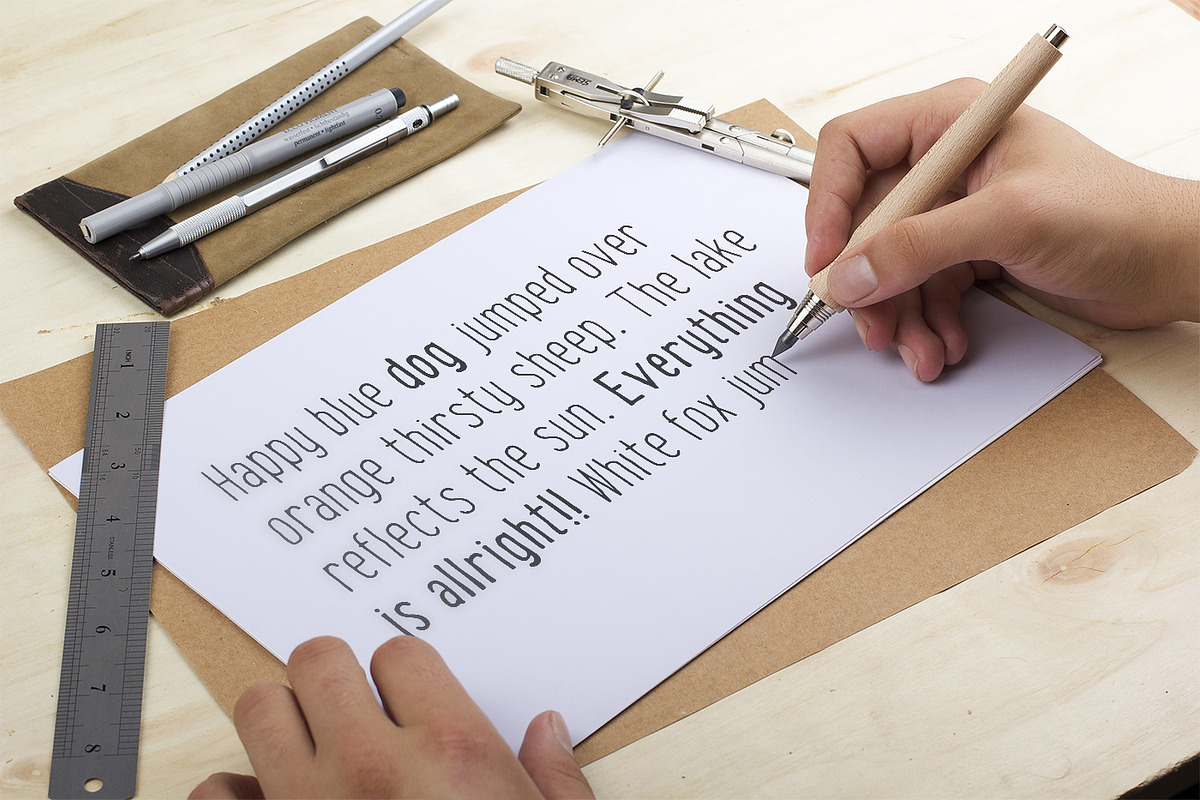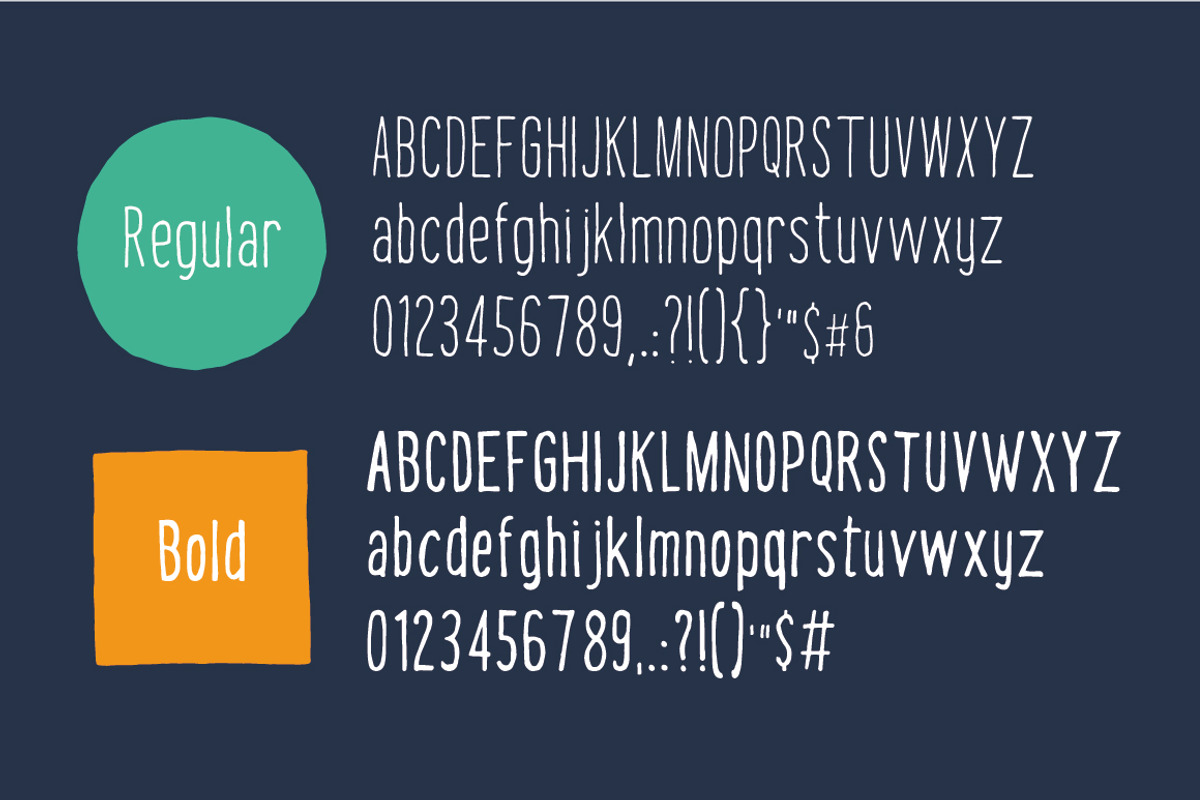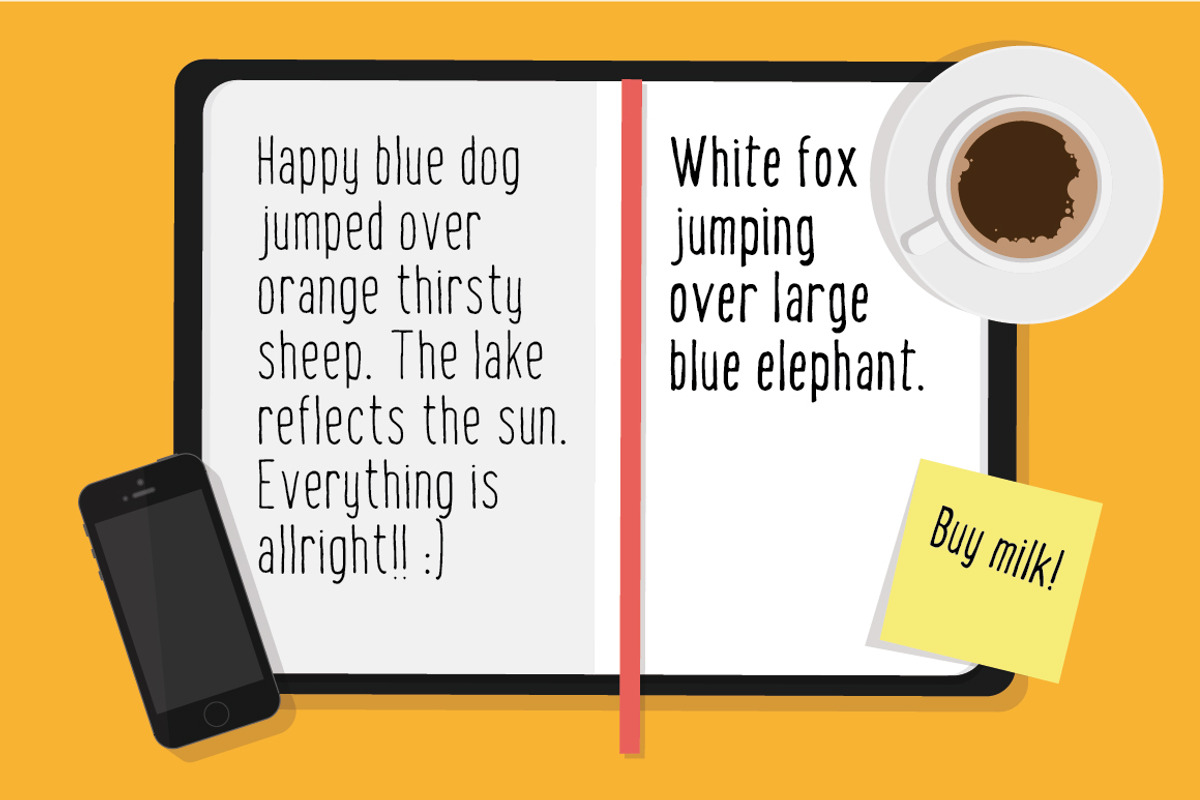
Handy - the hand drawn font
Handy - the hand drawn font by Vitek Graphic is a font selected for branding, posters, packaging, typography.
- Include two weights, lowercase and all basic characters.
Why Handy - the hand drawn font is worth a look
Handy - the hand drawn font by Vitek Graphic fits naturally into Branding, posters, packaging, typography.